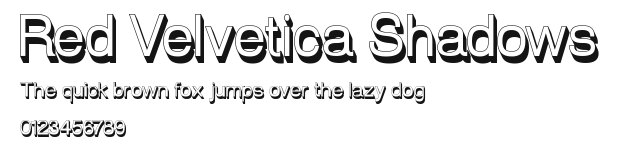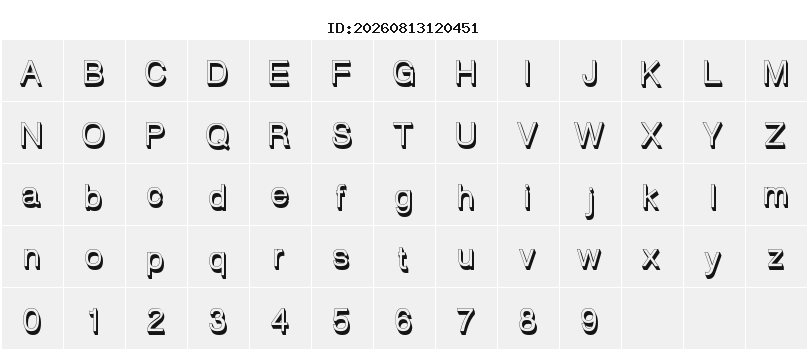
• Font Name: Red Velvetica Shadows
About Red Velvetica Shadows.ttf
Red Velvetica Shadows.ttf is a modern, elegant sans-serif font designed for ultimate readability and visual harmony. Perfect for branding, headlines, web design, and print materials.